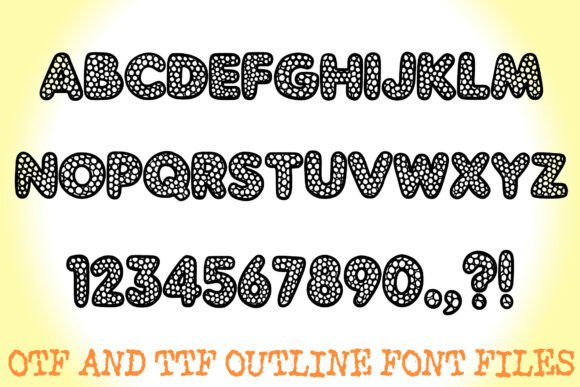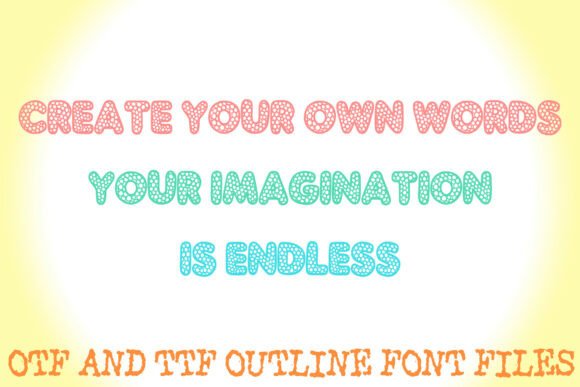
Get Ready to Make Your Projects Pop with the Dotty Pop Bubble Font!
Are you tired of using the same old fonts for your design projects? Look no further! The Dotty Pop Bubble Font is here to take your creations to the next level. This unique and playful decorative font is perfect for designers and crafters looking for a bold, legible, and visually fascinating typeface. In this article, we’ll dive into the features and benefits of the Dotty Pop Bubble Font and explore how it can elevate your projects.
A Unique Twist on Classic Bubble Letters
The Dotty Pop Bubble Font takes the classic, friendly bubble letter shape and fills it with an intricate, engaging dot pattern. The result is a highly decorative typeface that is both bold and legible. The clear outline and distinct internal pattern make it an excellent choice for a variety of design projects, from coloring pages and activity books to apparel design, logo creation, and unique event posters.
Whether you’re a professional designer or a crafter looking for a bold texture, the Dotty Pop Bubble Font is perfect for you. Its unique dot pattern adds a touch of playful complexity to headers and branding, making it ideal for projects that require a bit of whimsy. The font is also great for adding dimension to projects created with vinyl cutting machines like Cricut and Silhouette.
Key Features of the Dotty Pop Bubble Font
- Unique dot pattern: The intricate dot pattern adds a level of visual interest to your designs, making them stand out from the crowd.
- Clear outline: The font’s clear outline ensures that your text remains legible, even at smaller sizes.
- Bold and playful: The Dotty Pop Bubble Font is perfect for designs that require a bold, playful touch.
- Capital letters in black outline: The font features capital letters in black outline, with . ? ! and numbers only.
Project Ideas for the Dotty Pop Bubble Font
The Dotty Pop Bubble Font is versatile and can be used in a variety of design projects. Here are a few ideas to get you started:
- Coloring pages: The font’s bold outline and dot pattern make it perfect for coloring pages and activity books.
- Apparel design: Use the font to create fun and playful designs for t-shirts, hoodies, and other apparel.
- Logo creation: The Dotty Pop Bubble Font is ideal for creating unique and memorable logos for businesses and events.
- Event posters: Add a touch of whimsy to your event posters with the Dotty Pop Bubble Font.
- Vinyl cutting projects: The font’s dot pattern is perfect for adding dimension to projects created with vinyl cutting machines.
The Dotty Pop Bubble Font is a unique and playful decorative font that’s perfect for designers and crafters looking for a bold, legible, and visually fascinating typeface. Its intricate dot pattern and clear outline make it ideal for a variety of design projects, from coloring pages and activity books to apparel design, logo creation, and unique event posters. With its OTF and TTF files and capital letters in black outline, this font is easy to use and versatile. Get ready to make your projects pop with the Dotty Pop Bubble Font!